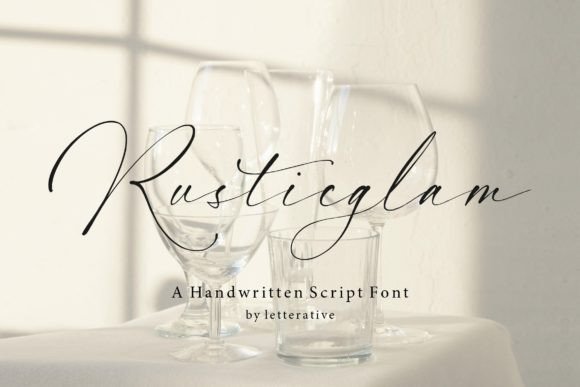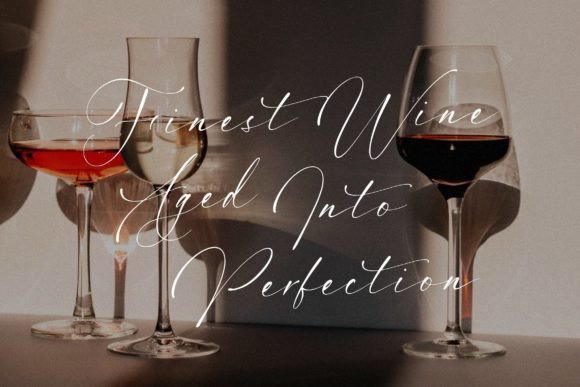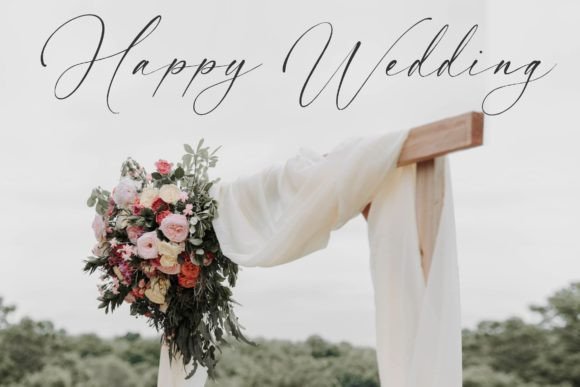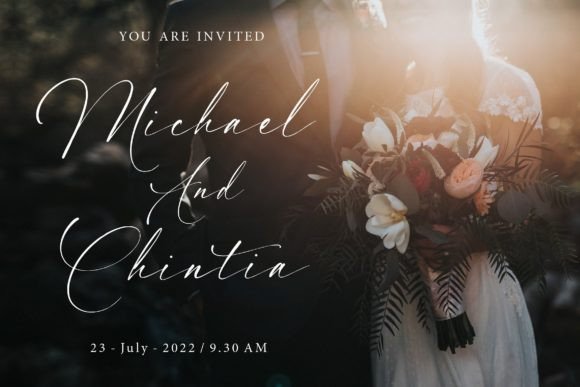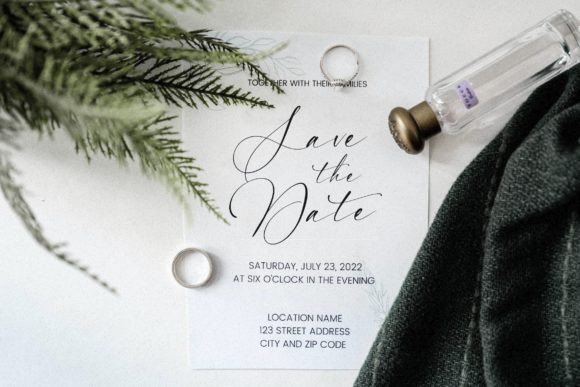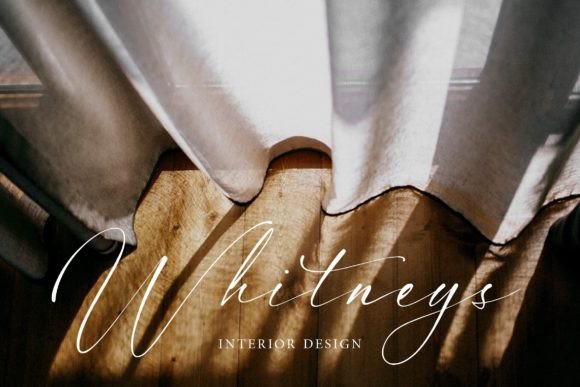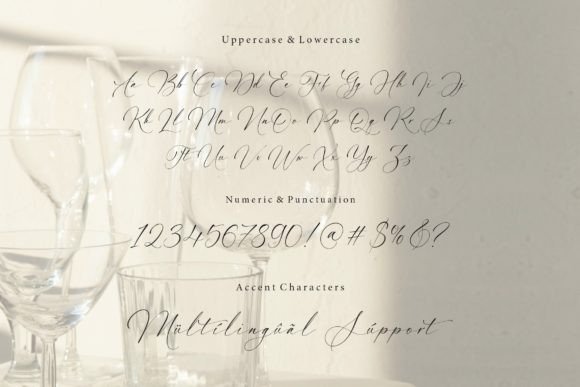
Rusticglam Font
About Rusticglam Font
Rusticglam, a unique and elegant handwritten font, is designed to add a touch of beauty and sophistication to a variety of designs. Whether you’re working on wedding invitations, thank you cards, greeting cards, logos, or other projects that demand a personalized and stylish touch, Rusticglam is crafted to deliver a sense of uniqueness and elegance.
The font’s elegant handwriting style lends a refined and timeless quality to your designs, making it a suitable choice for projects where a touch of sophistication is desired. Rusticglam is versatile and adaptable, allowing it to enhance the aesthetic of various creative endeavors.
Its uniqueness lies in the thoughtful design that captures the essence of handwritten elegance. Rusticglam creates a visual appeal that is both charming and graceful, making it ideal for projects that require a personalized and polished look.
Whether you’re crafting invitations for a special occasion or designing a logo that reflects a sense of refined style, Rusticglam is poised to elevate your creative projects. Its distinctiveness makes it a font that stands out, leaving a lasting impression on your audience.
Embrace the unique and elegant charm of Rusticglam, and let it be the element that adds a touch of sophistication to your designs. With its thoughtful design and elegant handwriting, Rusticglam is ready to enhance the visual appeal of your creative projects, making them truly memorable.